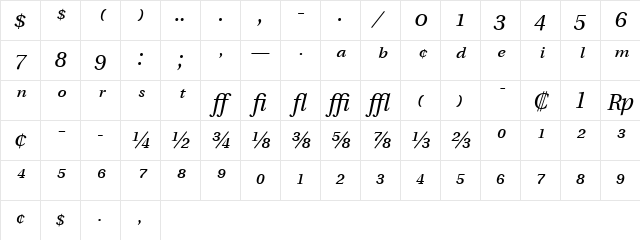
UtopiaExpert RomanItalic
Style: RomanItalic
UtopiaExpert Family
Design Context for UtopiaExpert
UtopiaExpert is a composed and adaptable typeface that performs quietly and consistently across a wide range of design contexts. The slanted form adds forward momentum and visual energy.